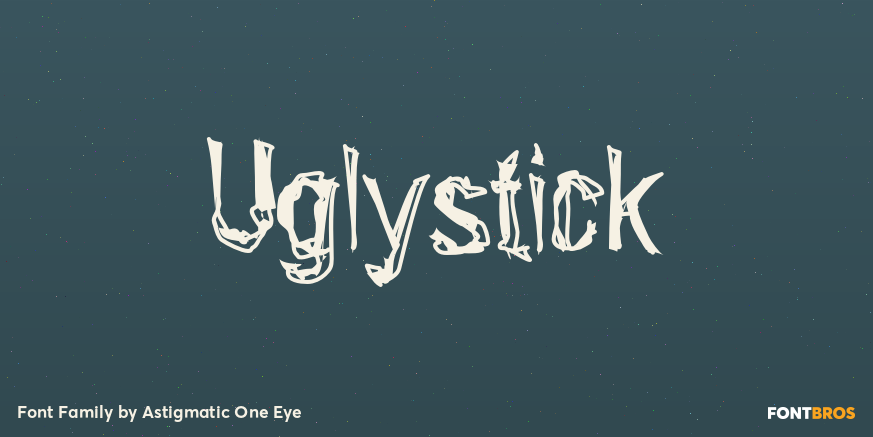
Uglystick
About Uglystick
The Uglystick font is best described by its name. A typestyle that is all shaken up, scribbled, and scrawled, it\’s a grungy typeface for those experimental and not so pretty occasions. Definitely a typeface beaten one too many times with the old ugly…